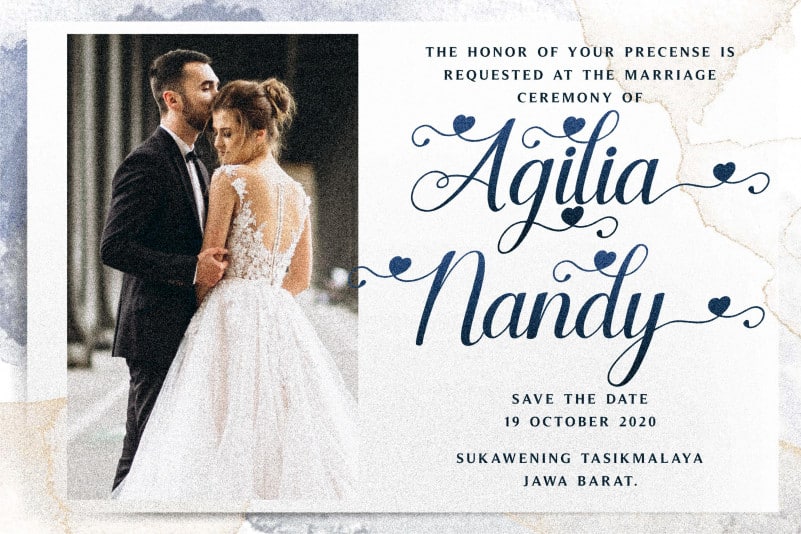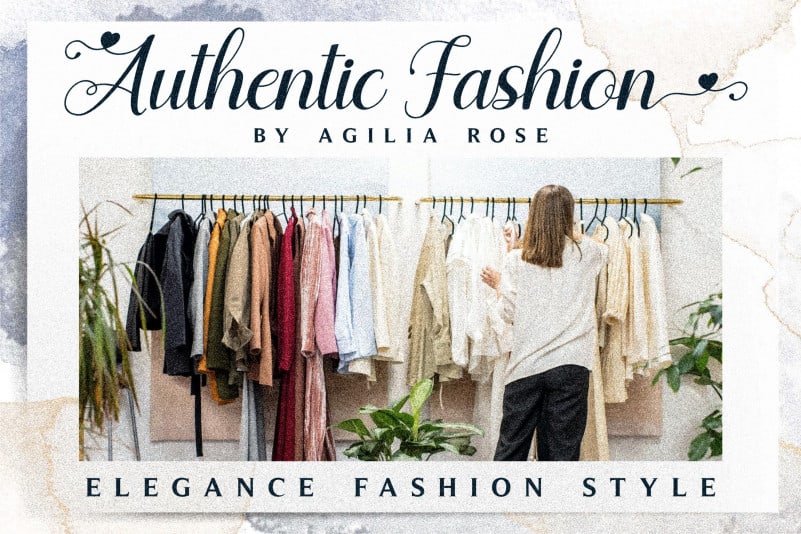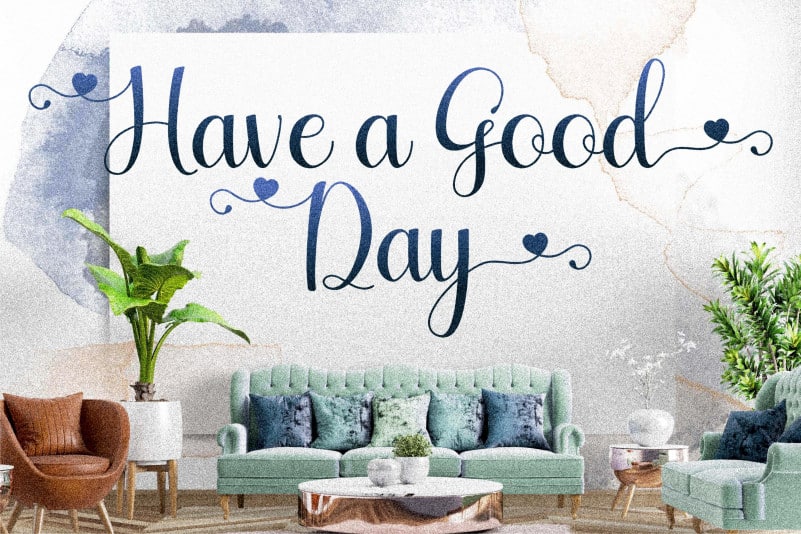
Agilia Calligraphy Font
Agilia Calligraphy Font is a stylish and delicate handwritten font. It has a clean, thin and smooth vibe and it will be a hit for any design that you want to add it to. This font is PUA encoded which means you can access all of the glyphs and swashes with ease!